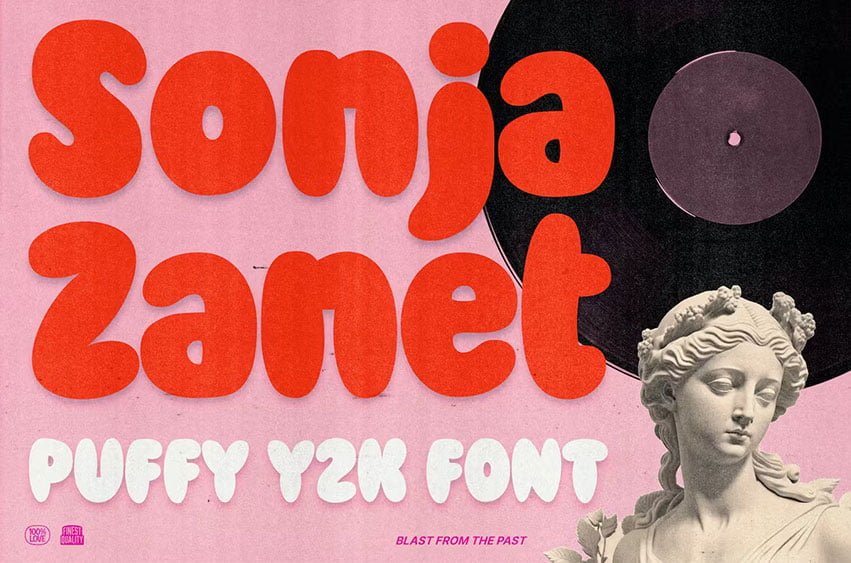
Sonja Zanet Bubble Y2K Font is a bubble-shaped font inspired by the invasion of the Y2K visual aesthetic trend nowadays. We talked about album artwork, posters, music videos, and many more.
Perfectly fit for logo, branding, poster, music project, album cover, cover artwork, events, y2k concepts, graffiti concepts, brutalism, modern aesthetics, graphic design project, fashion, apparel, merchandise, and many more.